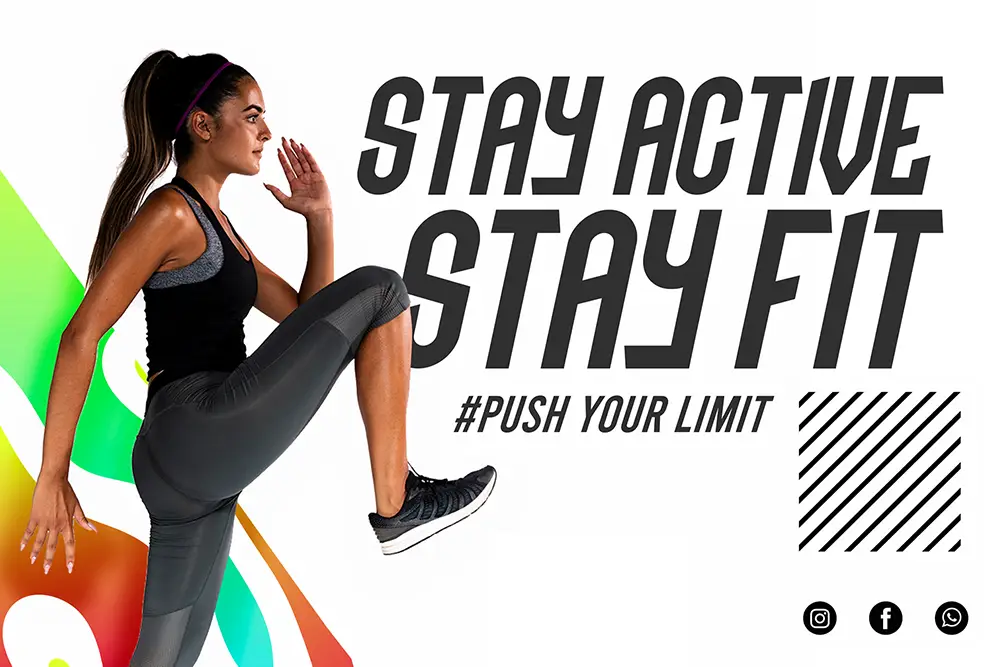
Turbo Drash – Sport Display Font for Bold and Energetic Design
Fonts are more than just letters; they’re powerful design tools that shape how people feel about your brand, poster, or campaign. Turbo Drash – Sport Display Font is crafted for impact, speed, and bold creativity. With extended structures, strong lines, and extra unique ligatures, this sport display font brings adrenaline into logos, esports, posters, and athletic branding.
Sport Display Font with Speed and Power
When you need a sport display font that screams intensity, Turbo Drash delivers. Its extended proportions and futuristic edge create instant authority, while the italic version adds dynamic motion. Designers who want to capture themes of speed, strength, and energy find Turbo Drash essential for their creative toolkit.
This typeface doesn’t just look powerful—it performs. Whether you’re creating logos for tournaments, digital banners for esports events, or posters for athletic campaigns, Turbo Drash ensures every headline gets noticed.
Key Features of Turbo Drash – Sport Display Font
Professional designers need fonts that combine creative style with practical features. Here’s what makes Turbo Drash stand out:
• Uppercase & Lowercase: Complete character sets for flexible design applications
• Multilingual Support: Extended Latin coverage for international projects
• Extra Unique Ligatures: Exclusive design ligatures to give text a custom feel
• Italic Version: Adds dynamic energy for sport and digital layouts
• Sport-Inspired Style: Perfectly built for athletics, esports, and bold branding
Why Designers Love Turbo Drash
Designers love Turbo Drash because it checks all the boxes of a great sport display font: boldness, clarity, flexibility, and a touch of uniqueness.
• Custom Look: The unique ligatures make every design feel distinctive
• High Impact: Perfect for big titles, event posters, and esports branding
• Global Reach: With multilingual support, designers can apply it worldwide
• Creative Pairings: Works well with brush and script companions for balanced contrast
• Professional Quality: Carefully designed for both print and digital use
Turbo Drash for Logos and Branding
Logos are a brand’s first impression, and Turbo Drash ensures it’s unforgettable. Its sport display font style is ideal for sports teams, gaming organizations, fitness clubs, and esports brands. The extended design delivers authority, while the italic style conveys speed.
For added expression, pair Turbo Drash with Roadpunks Handbrush Typeface or Break Fridays Clean Bold Script. Together, they create balance between structured power and brush-stroke dynamism.
Turbo Drash for Posters and Headlines
Event posters and headlines thrive on fonts that can command attention in seconds. Turbo Drash does exactly that. This sport display font dominates layouts with bold extended letters that make your message loud and clear.
From esports tournaments to fitness promotions, Turbo Drash guarantees that your posters won’t blend into the background. It’s built to win attention and hold it.
Turbo Drash in Esports and Digital Media
Esports, gaming, and digital content demand fast, modern, and powerful visuals. Turbo Drash is the sport display font that fits perfectly into these worlds. The italic version adds action, while the unique ligatures give a one-of-a-kind edge to streaming overlays, YouTube titles, and digital advertising.
For added creativity, combine Turbo Drash with Jocker Block Strong Brush Font to create a fusion of bold sport typography and raw brush energy.
• Character Set: Uppercase, Lowercase, Numbers, Punctuation
• Category: Sport Display Font
• Best Uses: Logos, Posters, Esports, Branding, Digital Media, Advertising
Font Pairing Suggestions
Turbo Drash shines when paired with complementary fonts that balance its boldness:
Pairing these fonts with Turbo Drash creates dynamic, powerful, and memorable branding.
Why Turbo Drash is the Sport Display Font You Need
From posters to esports branding, Turbo Drash ensures your designs look modern, professional, and full of energy.
Turbo Drash – Sport Display Font is the ultimate choice for designers who want speed, power, and uniqueness in their projects. With extra ligatures, italic style, and multilingual support, it’s built to elevate your creative work.
Don’t just design—make an impact with Turbo Drash. Pair it with Roadpunks, Break Fridays, or Jocker Block for unforgettable results.